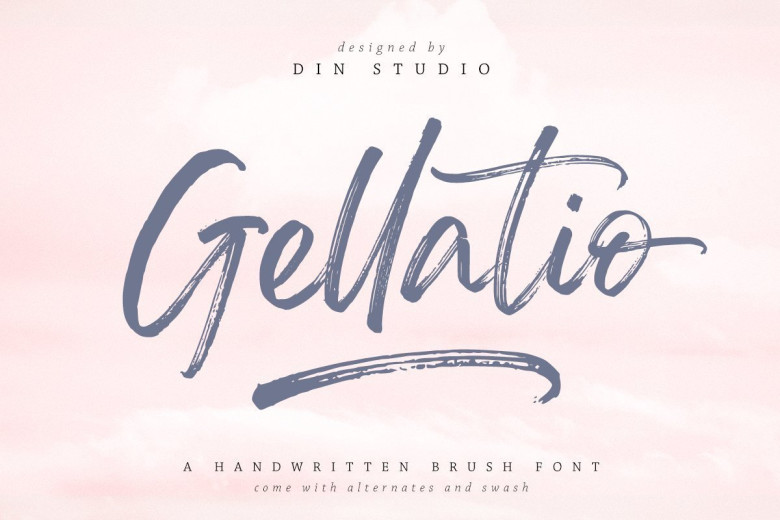
Gellatio Brush Script Font
Gellatio Font is an brush script font based on the expression of real handwriting. Gellatio font will work perfectly for fashion, e-commerce brands, trend blogs, wedding boutiques or any business that wants to appear upscale and chic.
Gellatio Font also Suitable for Logo, greeting cards, quotes, posters, branding, name card, stationary, design title, blog header, art quote, typography, art, modern envelope lettering or book design, happening style like hand-drawn design or watercolor design theme, craft design, any DIY project, book title, or any purpose to make your art/design project look pretty and trendy.